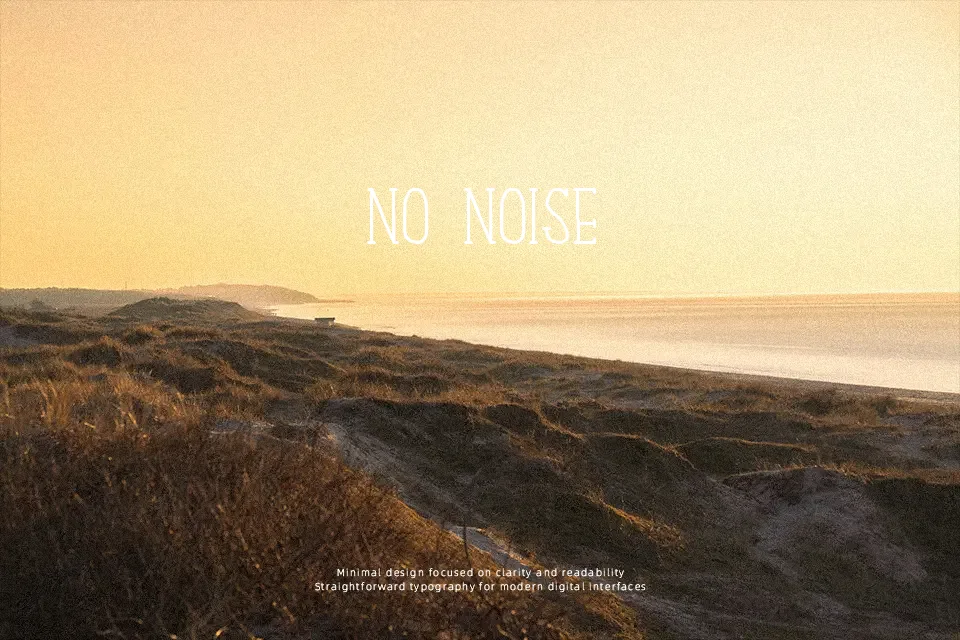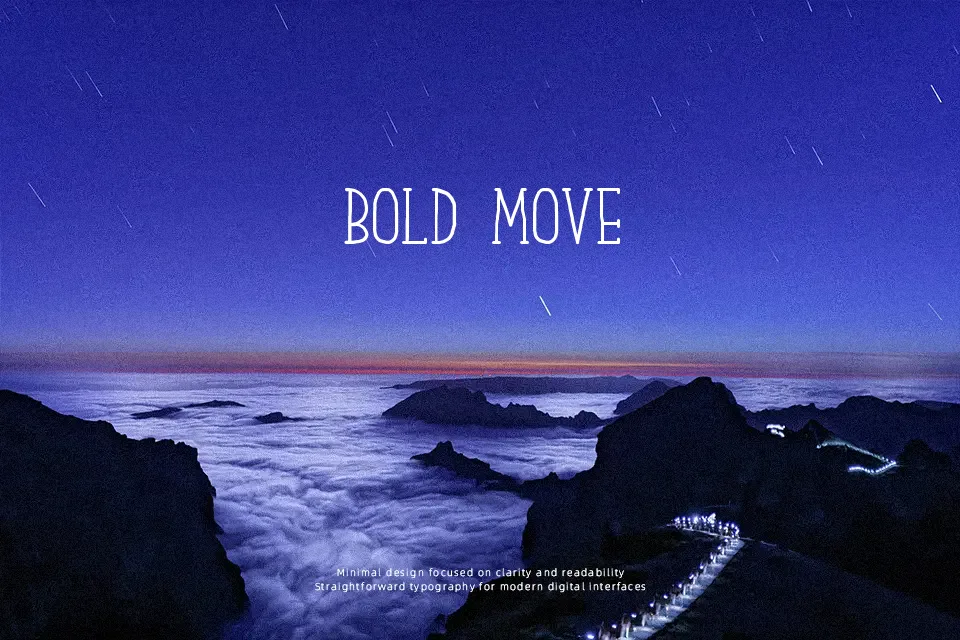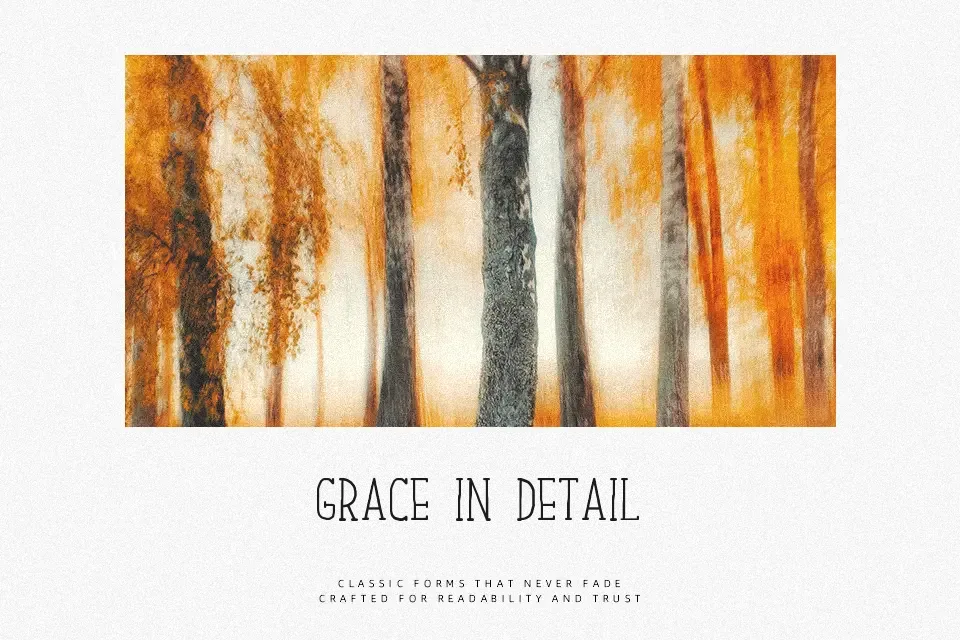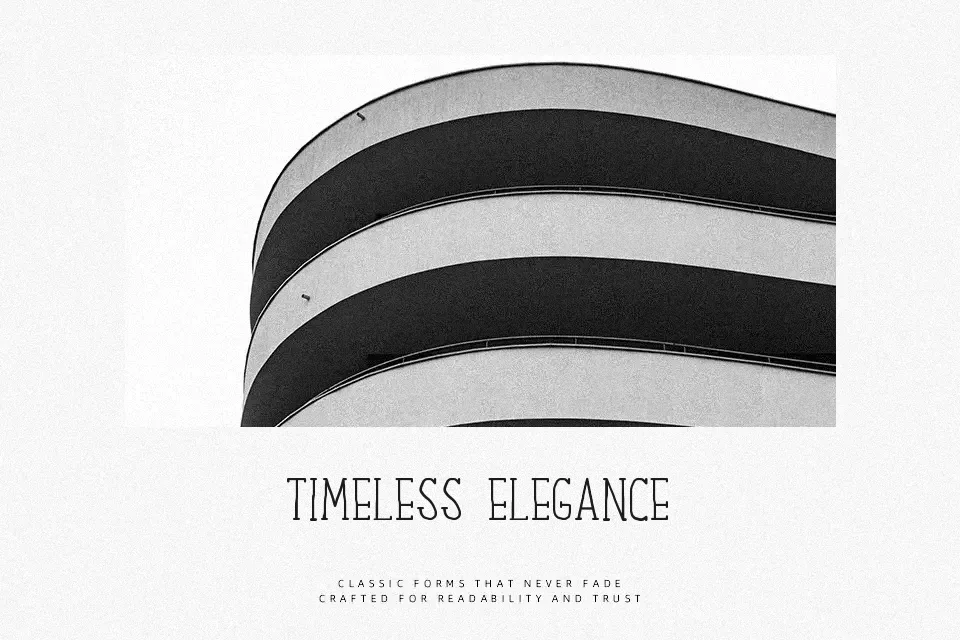
Our Serif Hand Font
Our Serif Hand uses irregular serif letterforms and hand-drawn stroke movement to create a casual display texture. The uppercase and lowercase characters keep a consistent handmade direction, while varied curves and slightly uneven details prevent the design from feeling formal. Spacing appears fairly compact, helping short words hold together in titles and labels. Numerals and common punctuation follow the same lively construction. It reads most clearly at larger sizes, where the individual serif shapes remain distinct. The decorative irregularity gives headlines personality, but it makes extended text and small captions less comfortable to scan.
Best For: poster titles,product packaging labels,informal logo designs,social media graphics
Perfect for headline, logo, and packaging, with a artistic and display style.